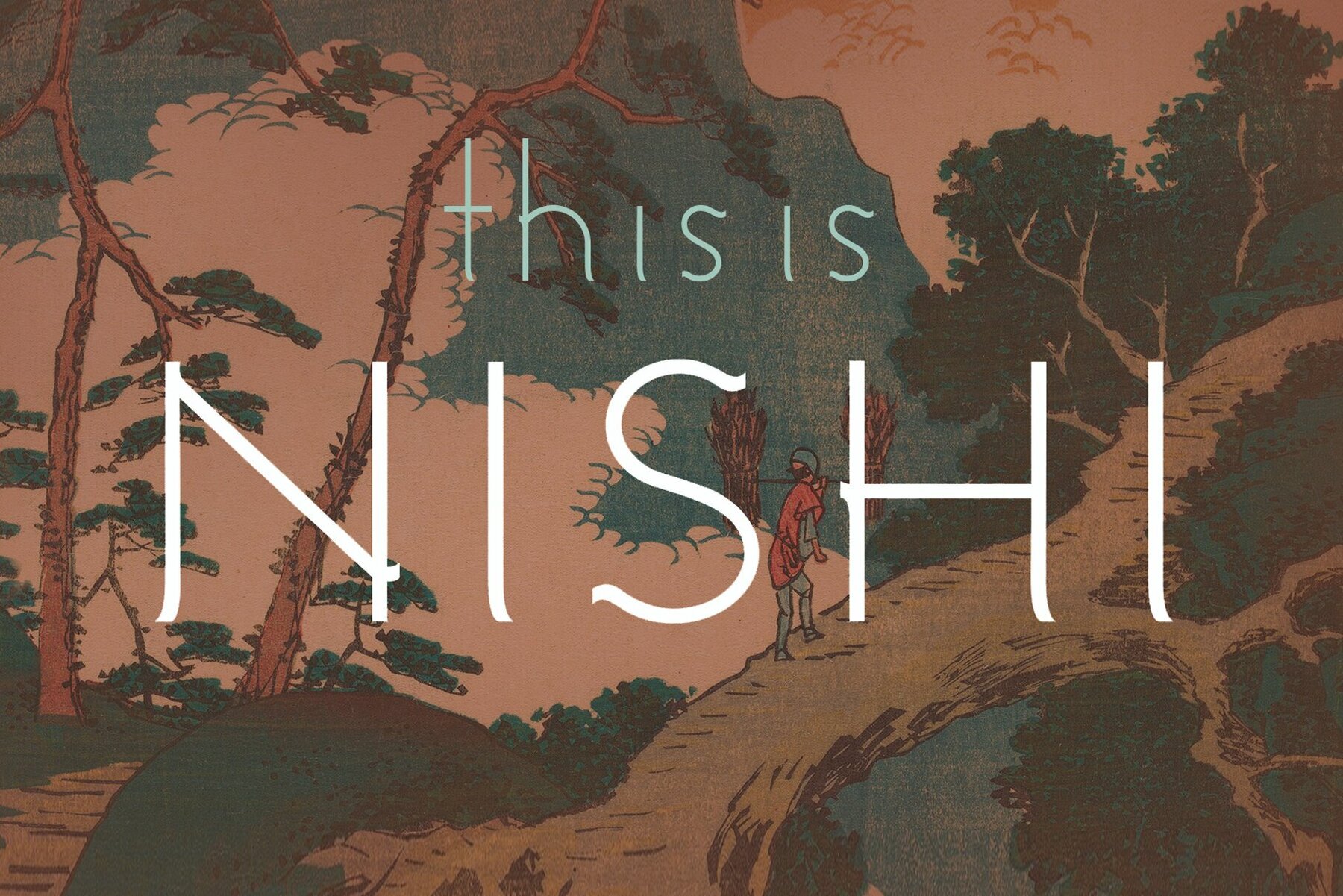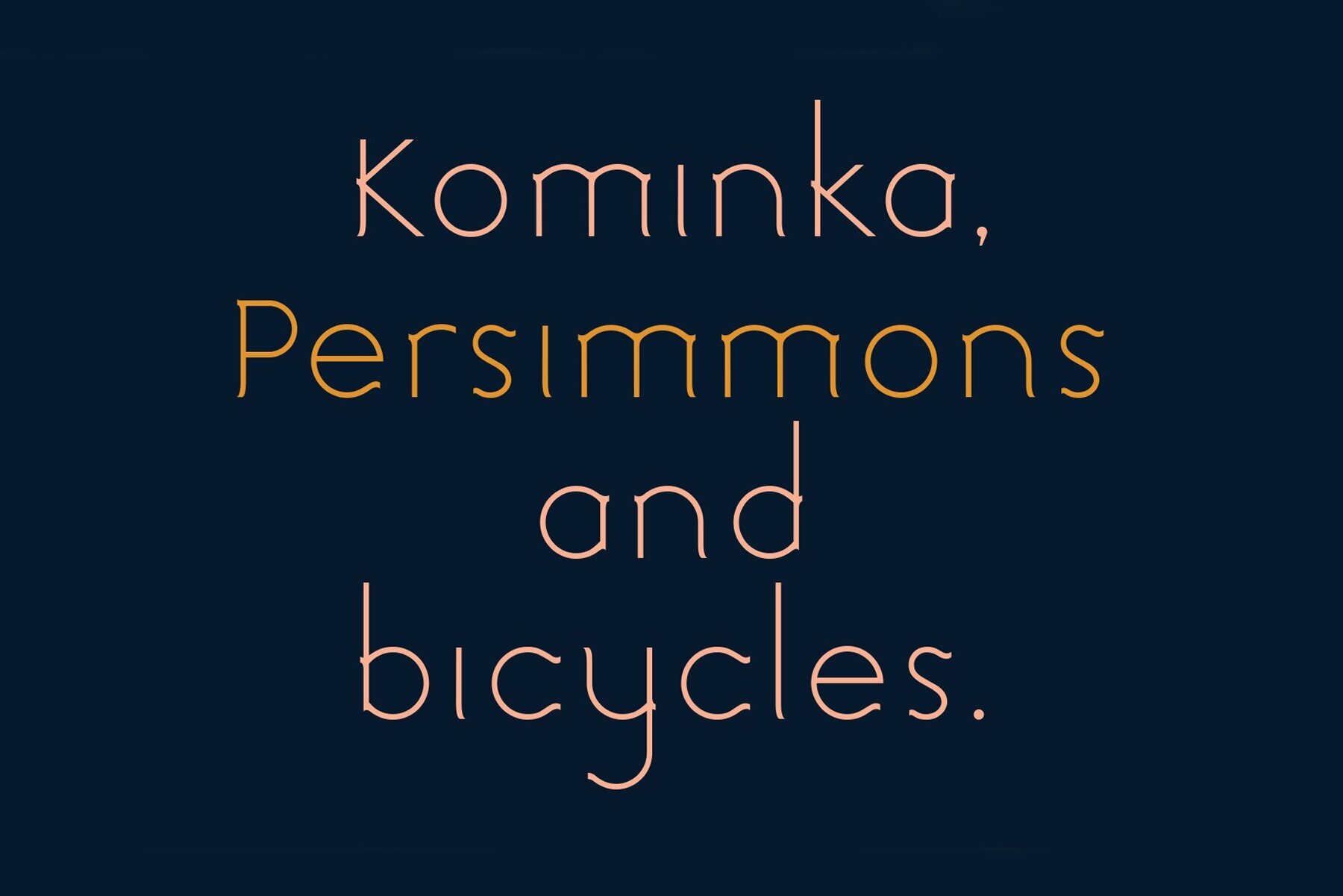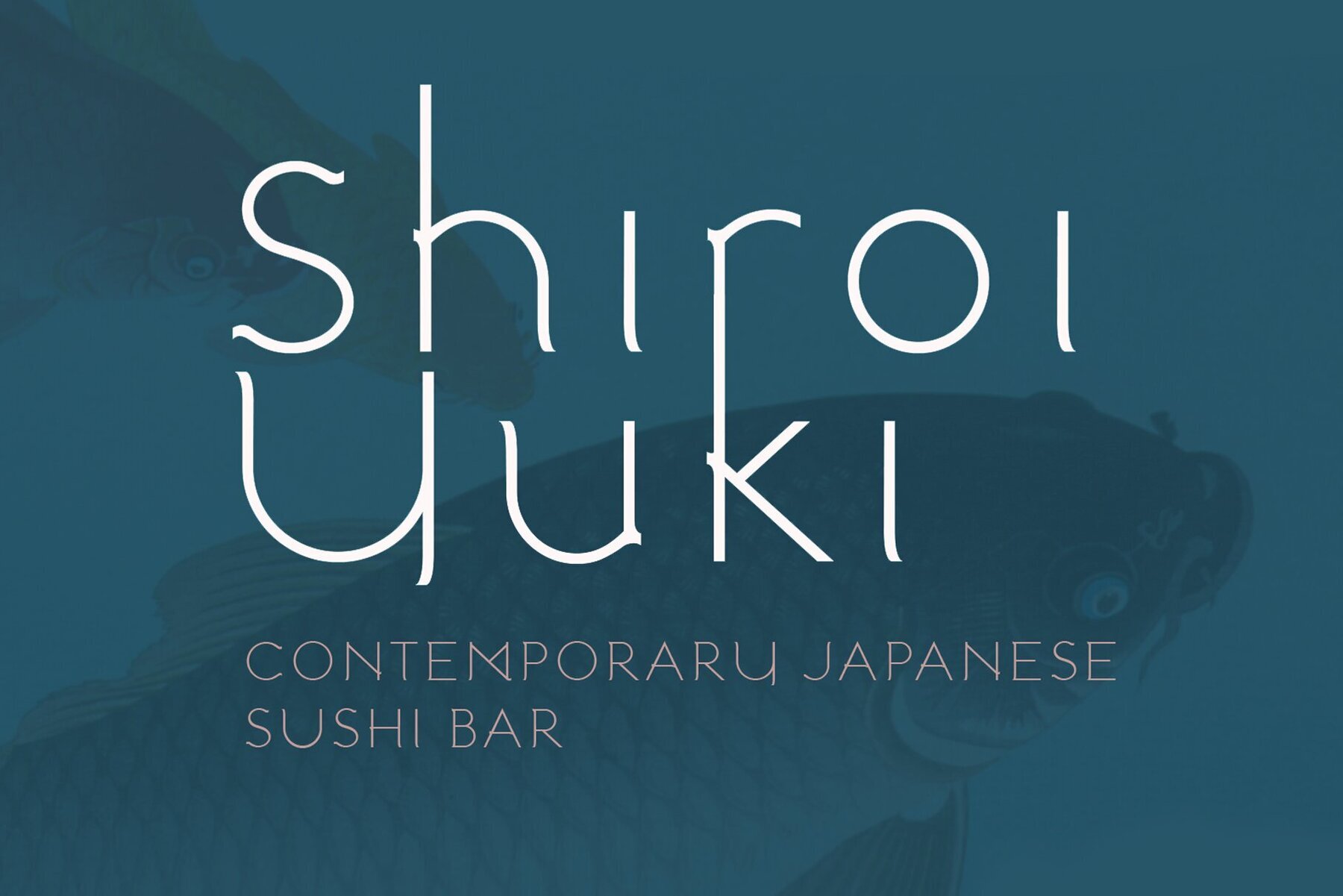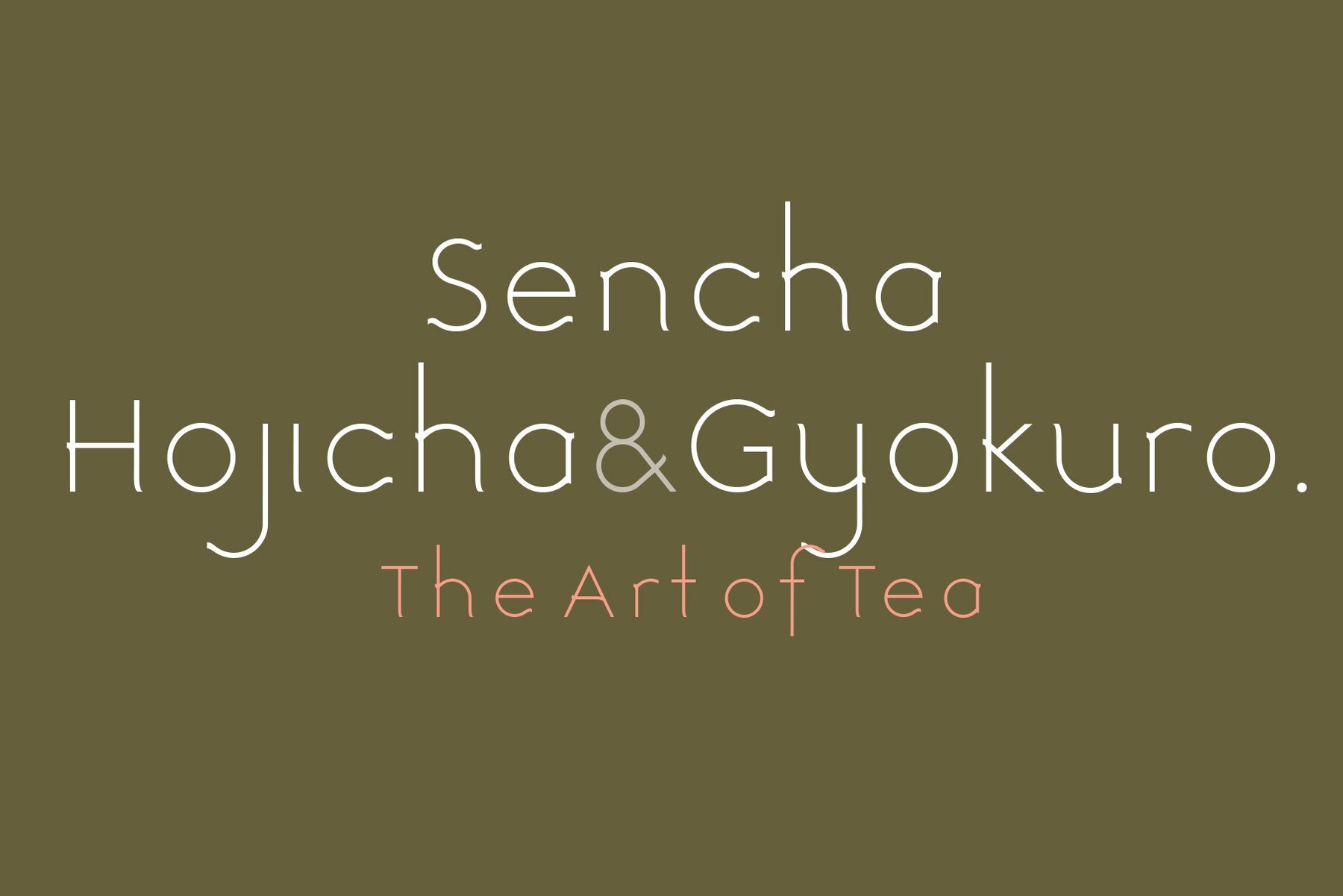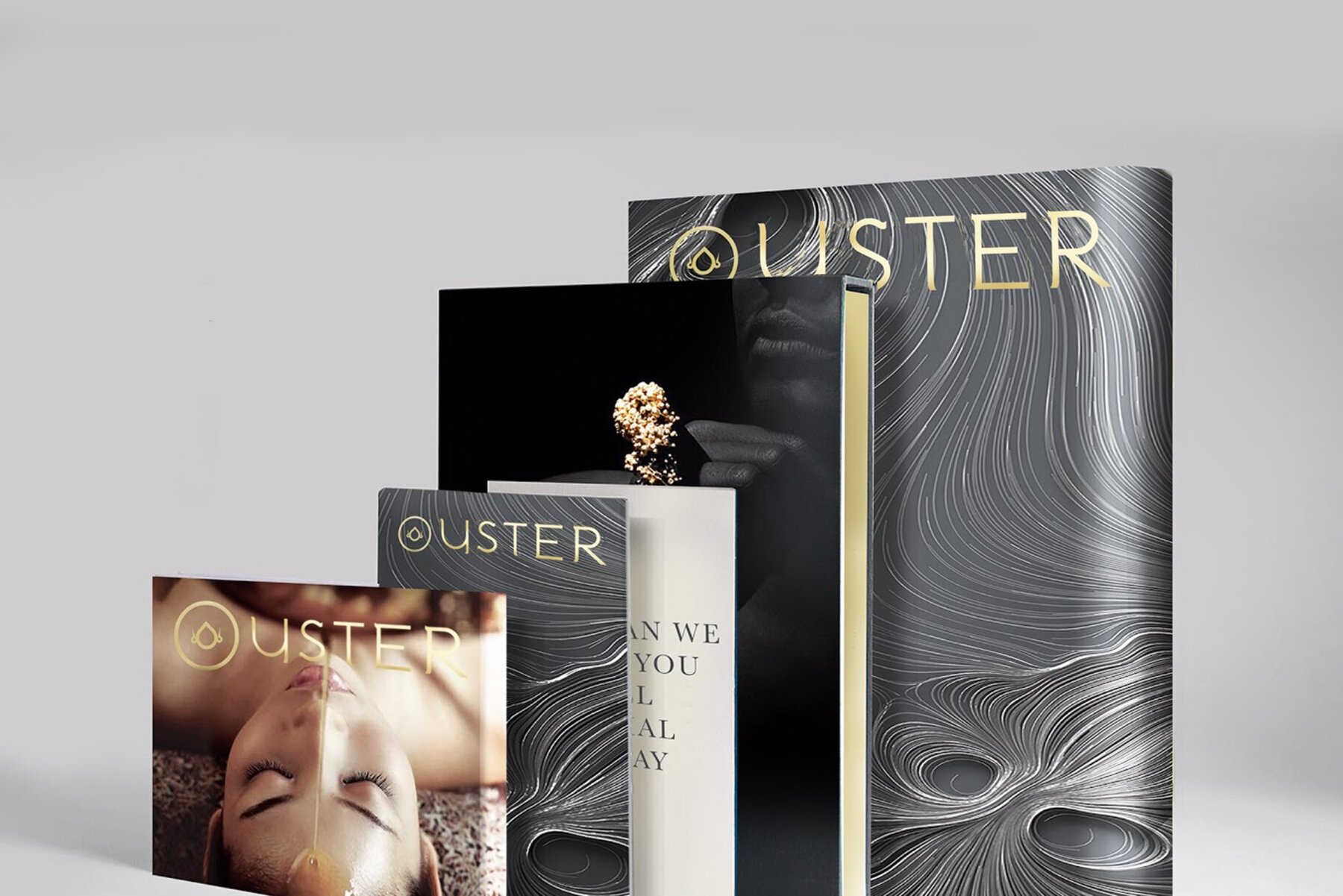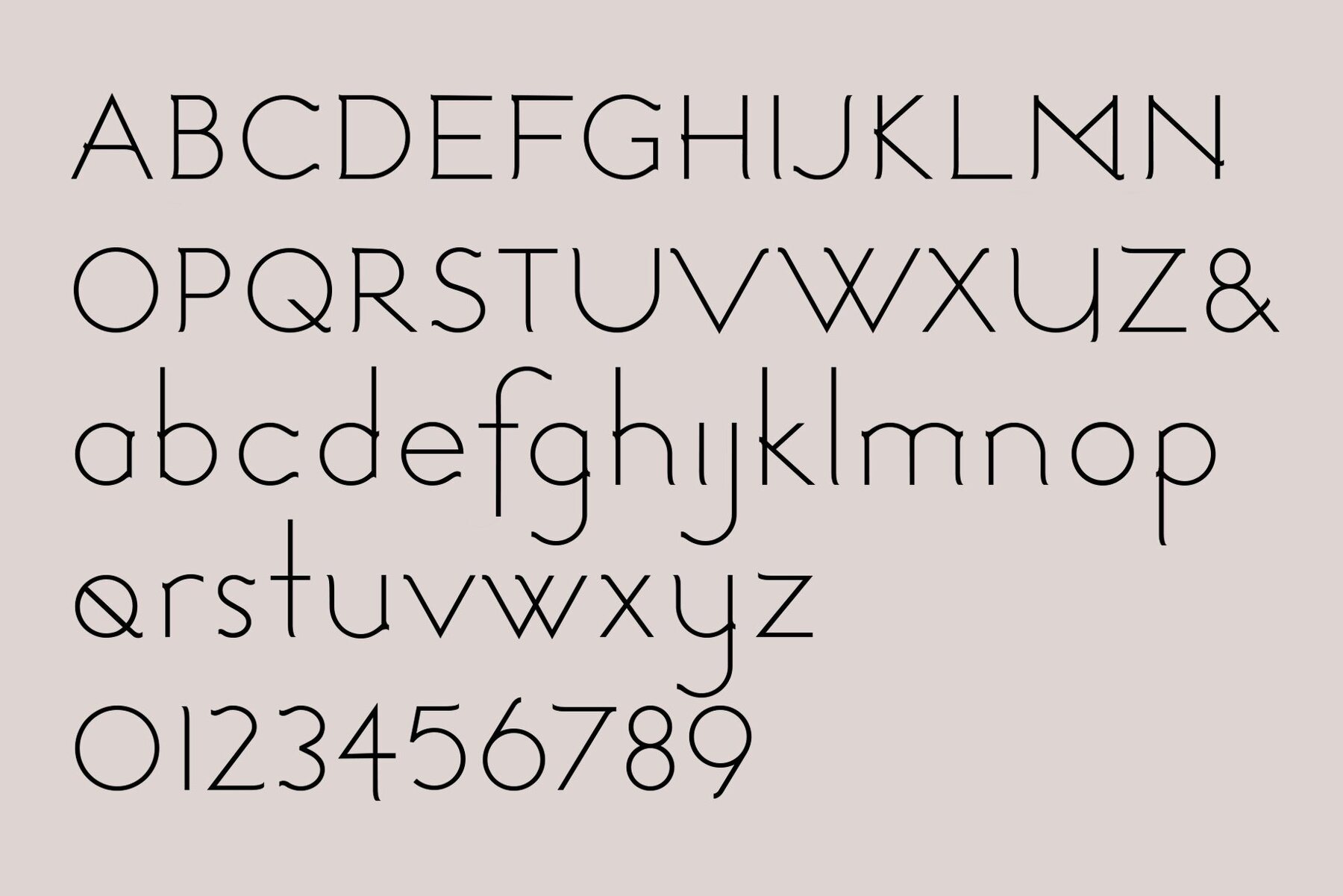
Nishi Font
Nishi is a distinctive crossover font crafted by LostandFoundry, blending modern sans serif aesthetics with delicate serif-like details. Inspired by Japanese culture, Nishi reflects subtle influences without relying on stereotypes. This gives it a unique charm and character suitable for various design projects.Nishi: A Modern Sans Serif With Subtle Elegance
Design Inspiration